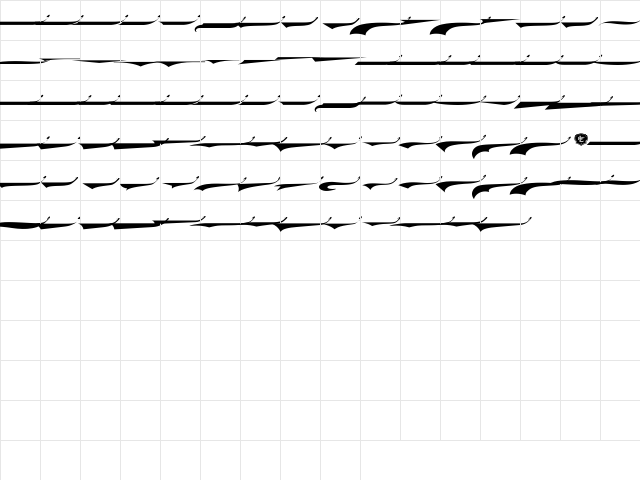
LHFPilsner Swashes Medium
Design Context for LHFPilsner Swashes Typeface
LHFPilsner Swashes flows with the natural rhythm of handwritten lettering, making it ideal for designs that call for warmth and personal expression.
Font Pairing: Combine LHFPilsner Swashes with a simple geometric sans for maximum contrast — the tension between flowing curves and clean structure is a classic typographic pairing.
Pro Tip: Use LHFPilsner Swashes for short runs of text — names, titles, or taglines. Extended body copy in script faces tires the eye quickly.